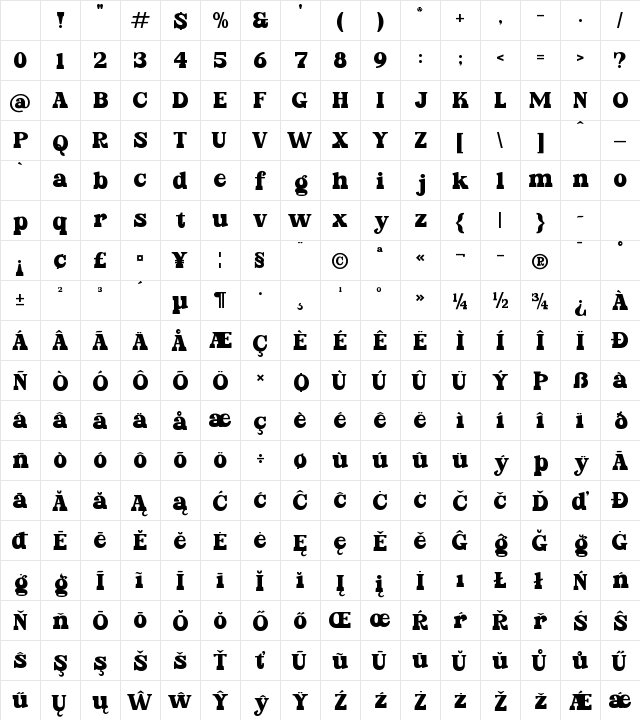
Parfect Silent is a composed and adaptable typeface that performs quietly and consistently across a wide range of design contexts.
Pro Tip: Use Parfect Silent in both headline and body roles to test its range before committing to a single application.